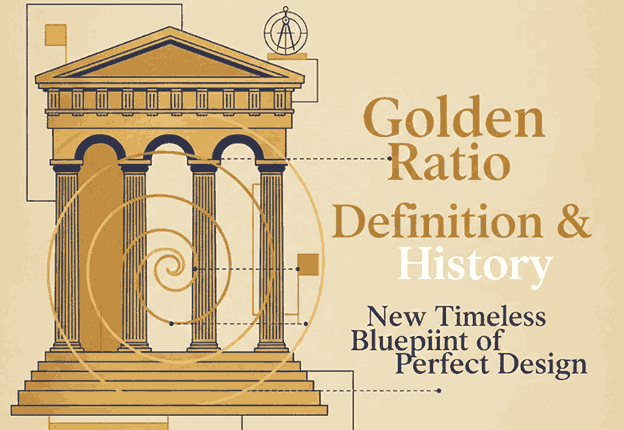
1. Introduction Golden Ratio Definition & History
Golden Ratio Definition & History Designers and artists have long sought a timeless formula that produces visual harmony. The Golden Ratio, often recognized as one of the most powerful composition tools in history, continues to influence architecture, art, branding, and typography today. Whether you’re designing a logo, a website, or a font-centered visual layout, understanding the Golden Ratio helps you create balance, beauty, and natural aesthetics.
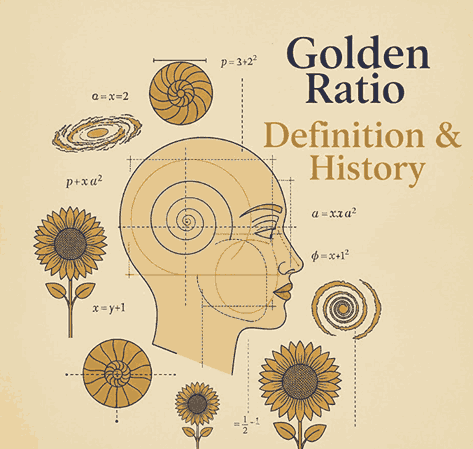
2. What Is the Golden Ratio Definition & History?
The Golden Ratio, also known as Phi (Φ) and valued approximately at 1.618, is a mathematical proportion found throughout nature, art, and design.
It describes the relationship between two quantities where:
(A + B) / A = A / B = 1.618
This natural proportional pattern is known for producing an ideal sense of harmony and visual balance. You’ll find it in:
- Nautilus shells
- Human anatomy
- Flower petals
- Galaxy spirals
- Renaissance paintings
- Modern brand logos
The universality of the Golden Ratio makes it a foundation of design excellence.
3. The Mathematics Behind the Golden Ratio Definition & History
The Golden Ratio originates from the Fibonacci Sequence, a series of numbers where each number is the sum of the two before it:
1, 1, 2, 3, 5, 8, 13, 21, …
As the sequence progresses, the ratio between successive numbers approaches 1.618, leading to the proportional beauty found in nature and geometry.
Golden rectangles, spirals, and triangles are all derived from this ratio, making it essential in layout design, architecture, and even typography spacing.
4. A Brief of Golden Ratio Definition & History
The Golden Ratio has been studied for thousands of years:
Ancient Greece
Greek mathematicians such as Euclid documented the ratio in “Elements,” linking it to geometry and aesthetics.
Renaissance
Artists including Leonardo da Vinci used the Golden Ratio in works like the Vitruvian Man and the Mona Lisa, elevating it as a standard of beauty.
Modern Times
Architects, graphic designers, and brand specialists continue to use Phi to create balanced compositions, logo grids, and typographic systems.
The Golden Ratio remains a symbol of perfection and artistic craftsmanship.
5. Why the Golden Ratio Definition & History Matters in Modern Design
Modern viewers are subconsciously drawn toward proportionally balanced visuals. Designs using the Golden Ratio tend to feel:
- Naturally pleasing
- More professional
- Better structured
- Easier to digest visually
It helps designers create layouts with optimal spacing, effective hierarchy, and aesthetically satisfying proportions in:
- Logos
- Web layouts
- Posters
- Packaging
- Photography
- Typography
6. Golden Ratio Definition & History in Logo Design
Many iconic brands incorporate Golden Ratio geometry in their logos, including:
- Apple
- Pepsi
- Toyota
Using Phi spirals and circular grids helps create logos that feel timeless, balanced, and instantly recognizable.
Designers often start with a Golden Rectangle or spiral, aligning elements—curves, icon shapes, or letterforms—to create cohesive branding.
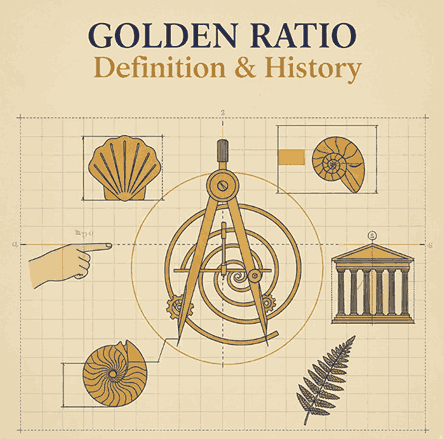
7. Golden Ratio Definition & History in Typography Font Selection
Typography plays a crucial role in achieving aesthetic harmony. Fonts that complement Golden Ratio compositions usually embody:
- Balanced stroke proportions
- Elegant curves
- Consistent spacing
- Strong readability
Choosing the right font amplifies the sense of order and sophistication in Golden Ratio-based layouts.
8. Recommended Fonts for Golden Ratio Definition & History–Inspired Designs
Here are carefully selected fonts from CalligraphyFonts.net that pair beautifully with Golden Ratio compositions:
1. Faint Green Font
A modern handwritten script with graceful curves. Ideal for branding, logos, and editorial layouts.
2. Golden Autumn Font
A luxurious handwritten font with soft strokes, perfect for elegant brand identities.
3. Pictorial Style Font
An artistic script font featuring refined visual rhythm—excellent for posters, book covers, and product packaging.
These fonts offer organic shapes and refined silhouettes that align beautifully with Golden Ratio compositions, helping designers achieve a visually harmonious aesthetic.
9. How to Apply the Golden Ratio Definition & History in Your Creative Projects
Here are practical ways designers integrate Phi into their work:
1. Layout Composition
Divide your canvas using the 1:1.618 proportion to create hierarchy and balance.
2. Typography Scaling
Set headline, subheadline, and body text sizes using Phi increments for harmonious typography.
3. Logo Structure
Use circles and rectangles based on the Golden Ratio to form shapes, curves, and letter marks.
4. Spacing & Margins
Apply the ratio to padding, margins, and leading (line spacing) for cleaner visual flow.
5. Photography & Cropping
Use the Golden Spiral to highlight focal points in images, improving storytelling and visual impact.
10. Final Thoughts
The Golden Ratio is more than a mathematical concept—it’s a universal design principle that inspires harmony, balance, and timeless beauty. From logo grids to typographic scaling, Phi remains an essential tool for designers seeking refinement and professional structure.